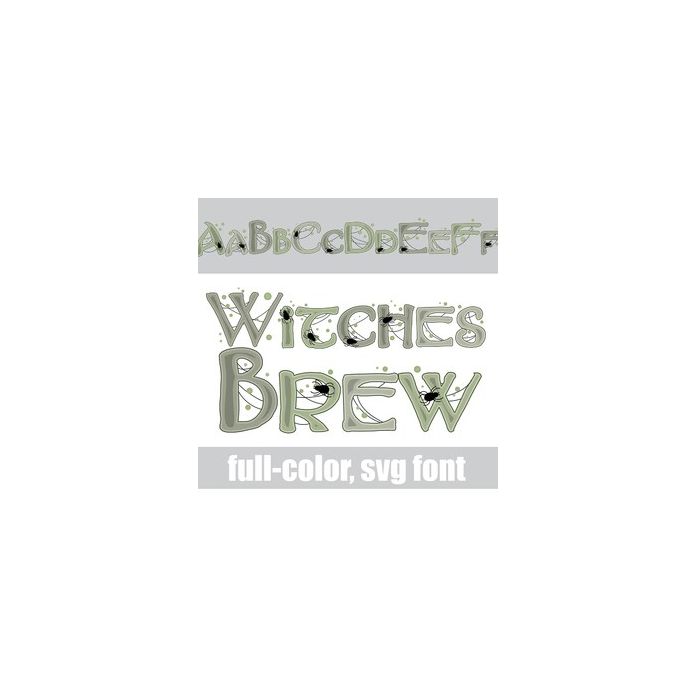
This full-color font features green brew with bubbles, spiders, and bats. There is an alt case w/ additional colors you can access through your system or Silhouette's glyph map.